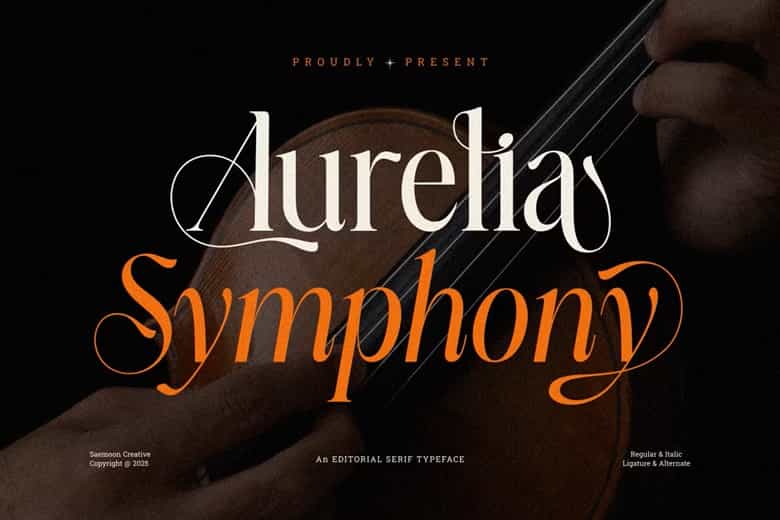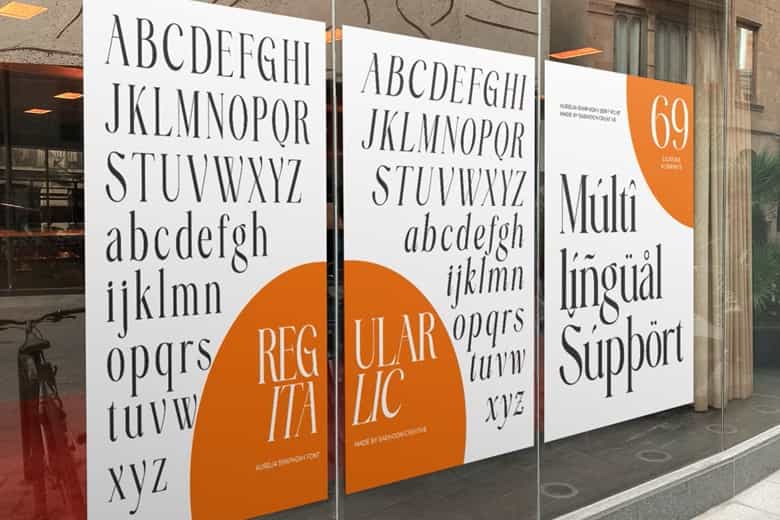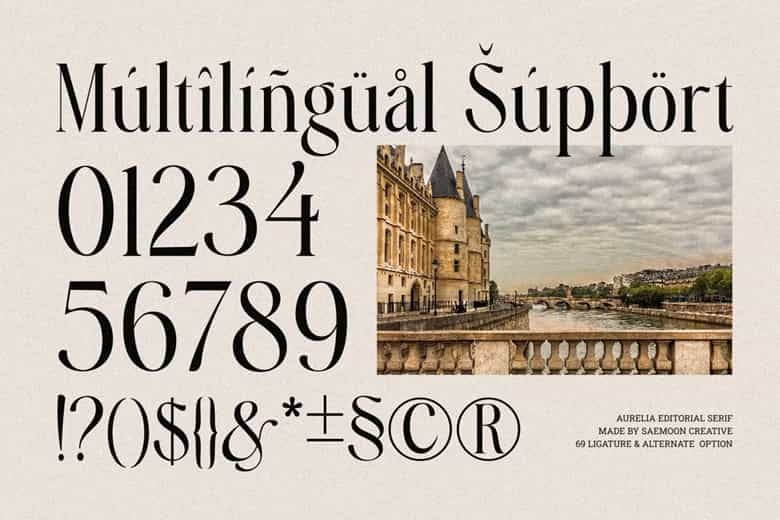
Aurelia Symphony Font
Aurelia Symphony is a high-contrast serif font with a sophisticated accent, which will make your artistic creation look elegant and have a romantic editorial flair. This typeface will be ideal in branding, magazines, book cover, wedding design, and luxury packaging, since it has gorgeous curvatures, crispy serifs and a variety of ligatures and stylistic alternates.